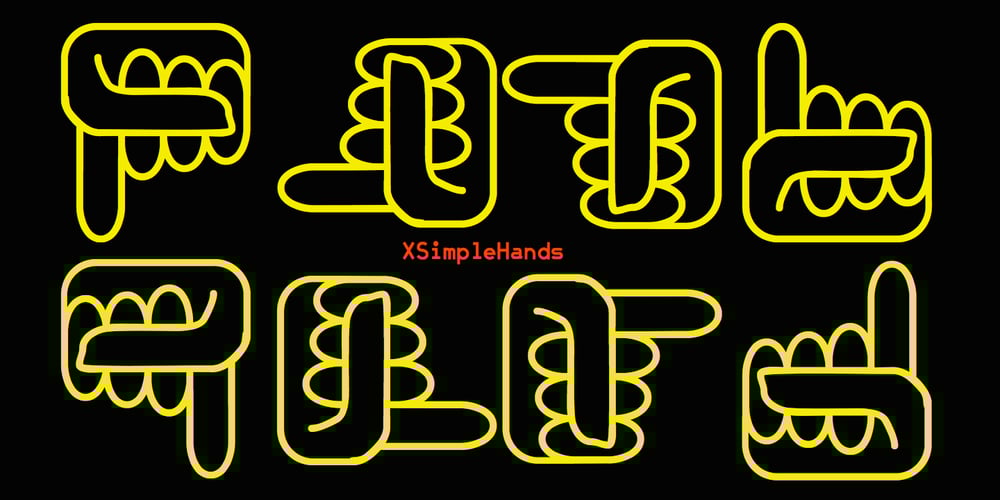
XSimple Hands Font Family was designed by Robert Schenk and published by Ingrimayne Type. XSimple Hands contains 1 styles and family package options. XPointedDesert and XSimpleHands do not have as much variety in the hands as XPhyngern, but their hands point in a lot more directions–up, down, and at 45-degree angles.